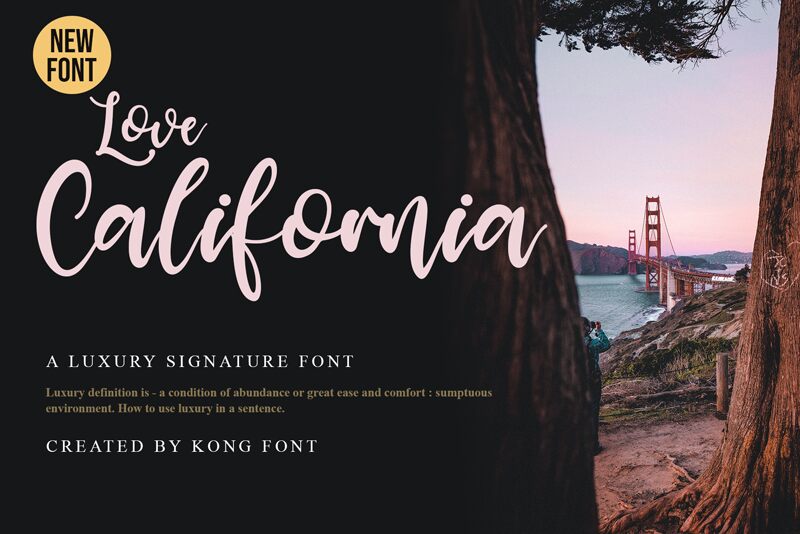
Love California
Love California is a luxurious signature font designed by Kong Font. With its semi-light weight, this calligraphic typeface captures the essence of elegance and sophistication.
Perfect for high-end branding projects, Love California adds a touch of refinement to logos, packaging, and invitations. Its graceful curves and stylish flourishes make it an ideal choice for fashion magazines, beauty products, and exclusive events. Whether you're looking to evoke a sense of romance or elevate your designs with a touch of glamour, Love California is the font that will make your project shine.